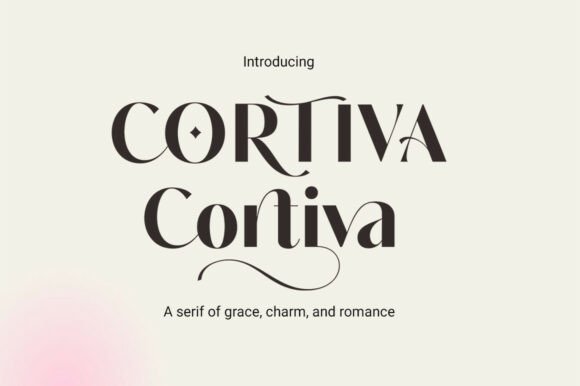
Introduction to Cortiva Font
Cortiva is a refined typeface that blends modern elegance with timeless charm, designed to capture attention through its striking contrasts and graceful details.
Its letterforms feature bold strokes paired with delicate curves, creating a balance of strength and sophistication that makes text both powerful and stylish Subtle flourishes and sculpted terminals give Cortiva a distinctive personality, while its versatility allows it to adapt seamlessly to branding, editorial layouts, invitations, packaging, and luxury design projects.
Key Features of Cortiva Font
Why Choose Cortiva Font?
Cortiva Font offers exceptional quality and versatility, making it a valuable addition to your design toolkit. Whether you’re creating for personal projects or commercial use, Cortiva Font delivers professional results.